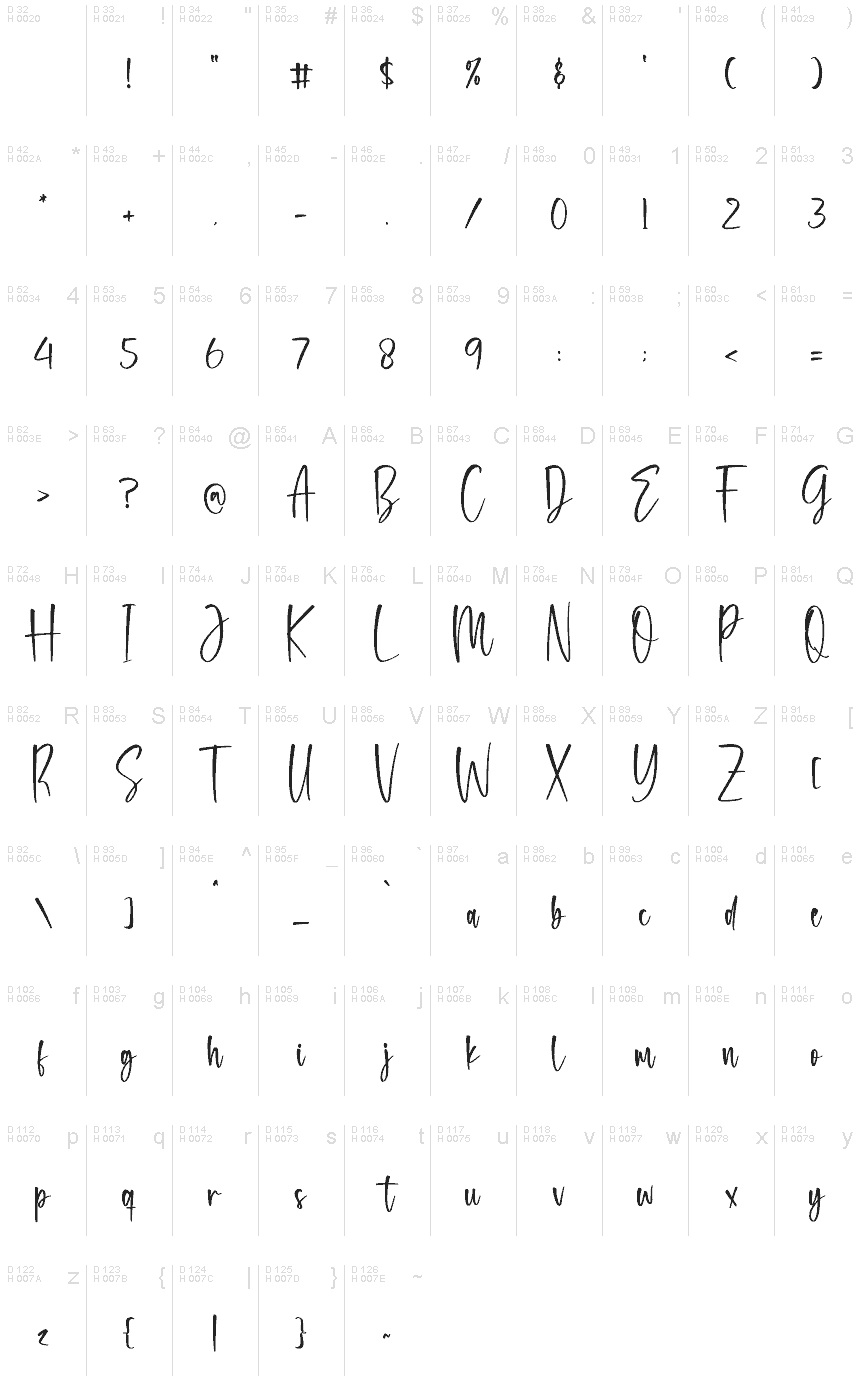
Sharon Daisy
Sharon Daisy font is an elegant, flowing handwritten light font by Letterena Studios. This modern condensed typeface features expressive characters with a personal touch to instantly elevate any design. It works perfectly in various scales, whether small or big.